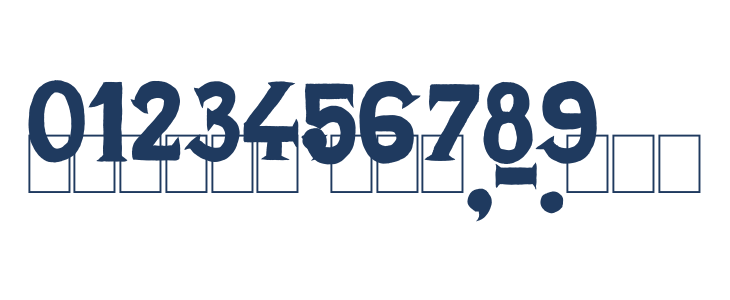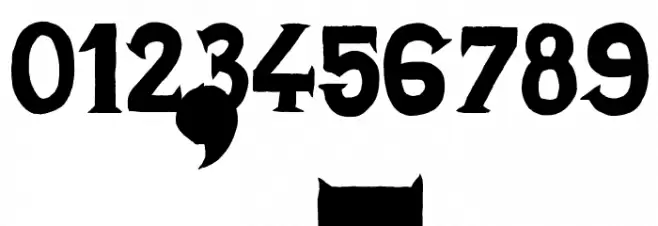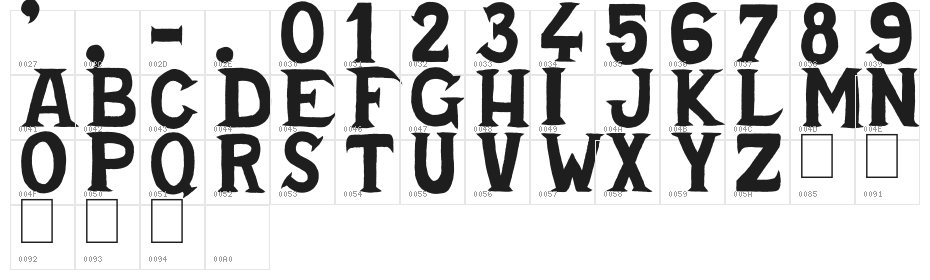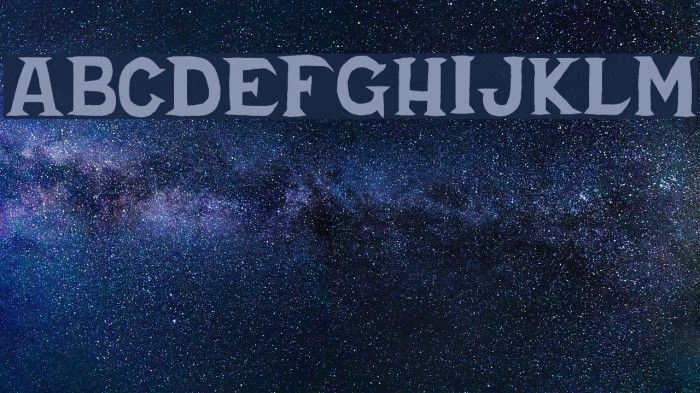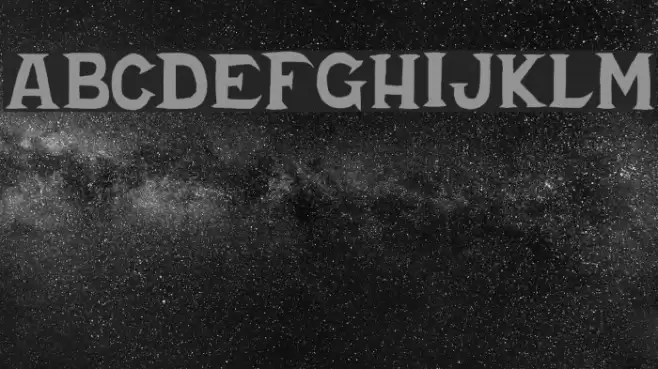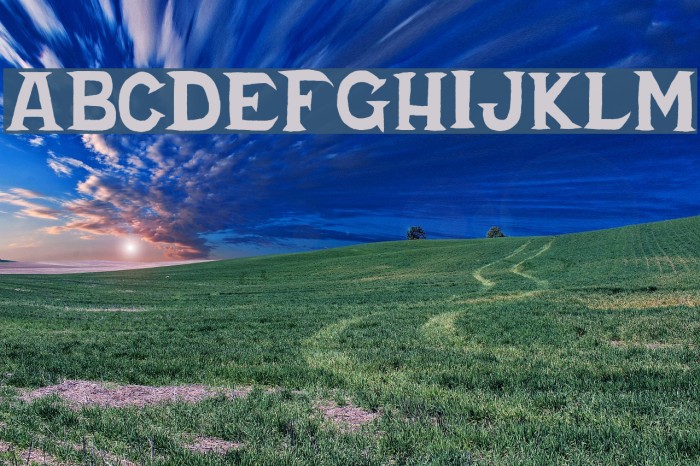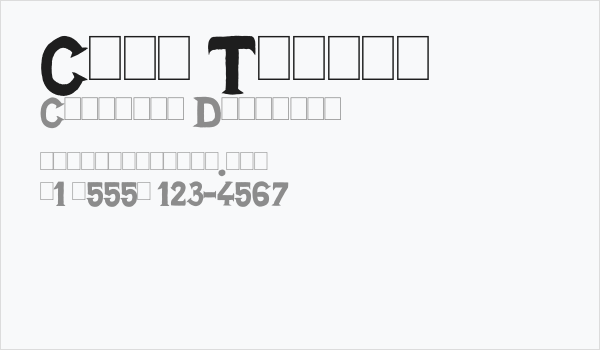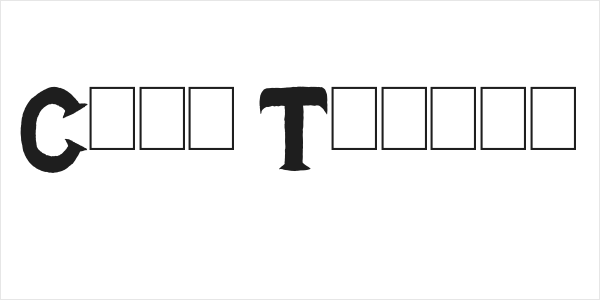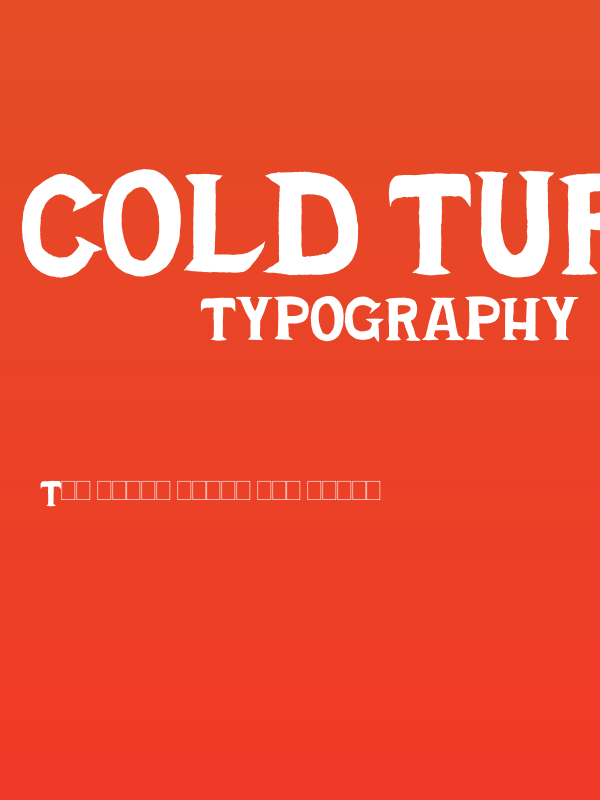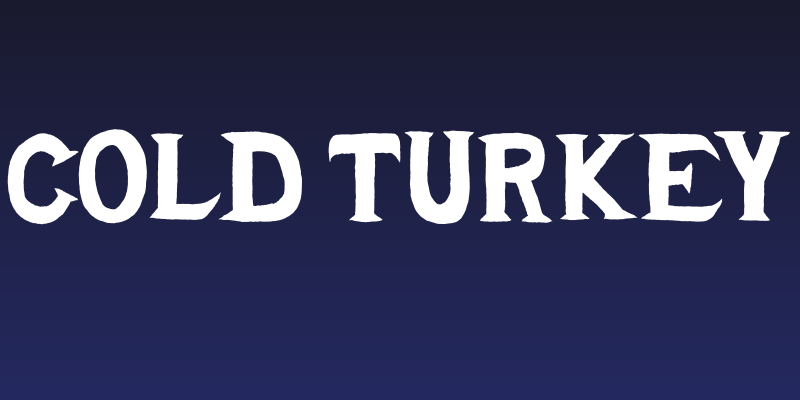
Cold Turkey Font
Cold Turkey Description
This font exhibits a bold and rugged style, characterized by its thick, uneven strokes and a hand-drawn appearance. The letters have a slightly distressed look, giving them a vintage and rustic feel. The uppercase and lowercase letters maintain a consistent style, with sharp edges and a somewhat irregular baseline, adding to its handcrafted aesthetic. The numbers and special characters follow the same design principles, ensuring a cohesive look across all glyphs. This font's unique style makes it stand out, ideal for projects that require a touch of personality and a strong visual impact.
| Proposed Projects | Ideal for branding, posters, packaging, and any design needing a rustic, handcrafted feel. |